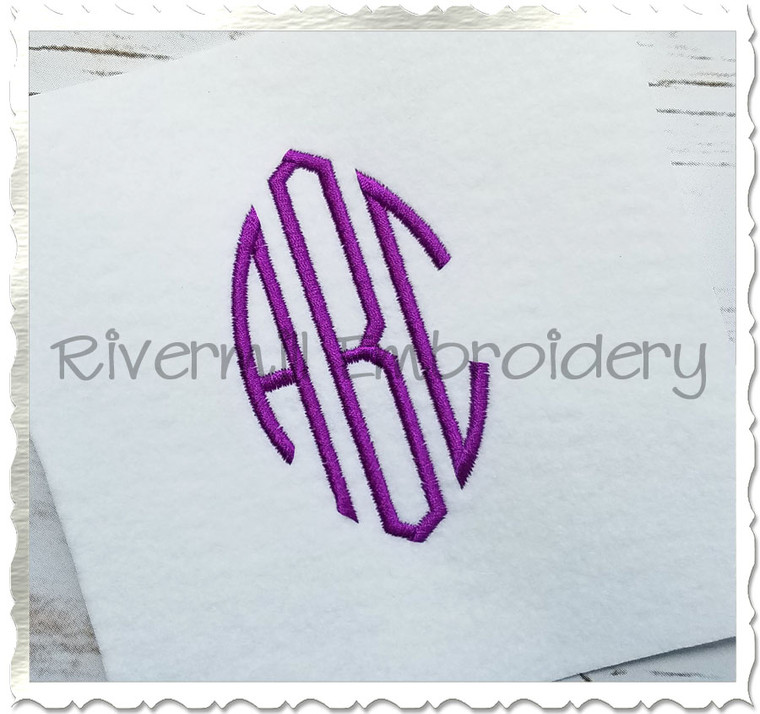
Oval 3 Letter Monogram (Style #2) Machine Embroidery Font
This set comes with Left, Center, and Right upper case letters (shown in the second image) in 3 sizes:
2" Alphabet - Satin Stitch
3" Alphabet - Satin Stitch
3.85" Alphabet (fits a 4x4 hoop) - Satin Stitch